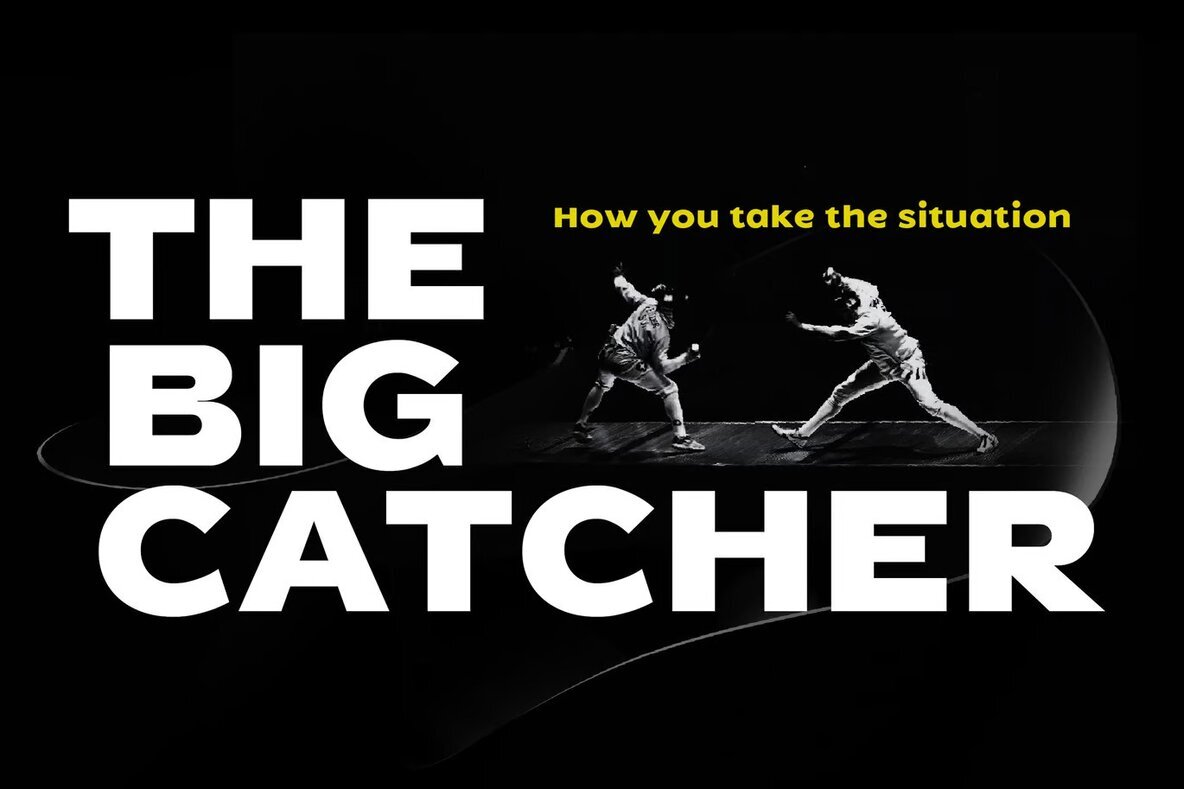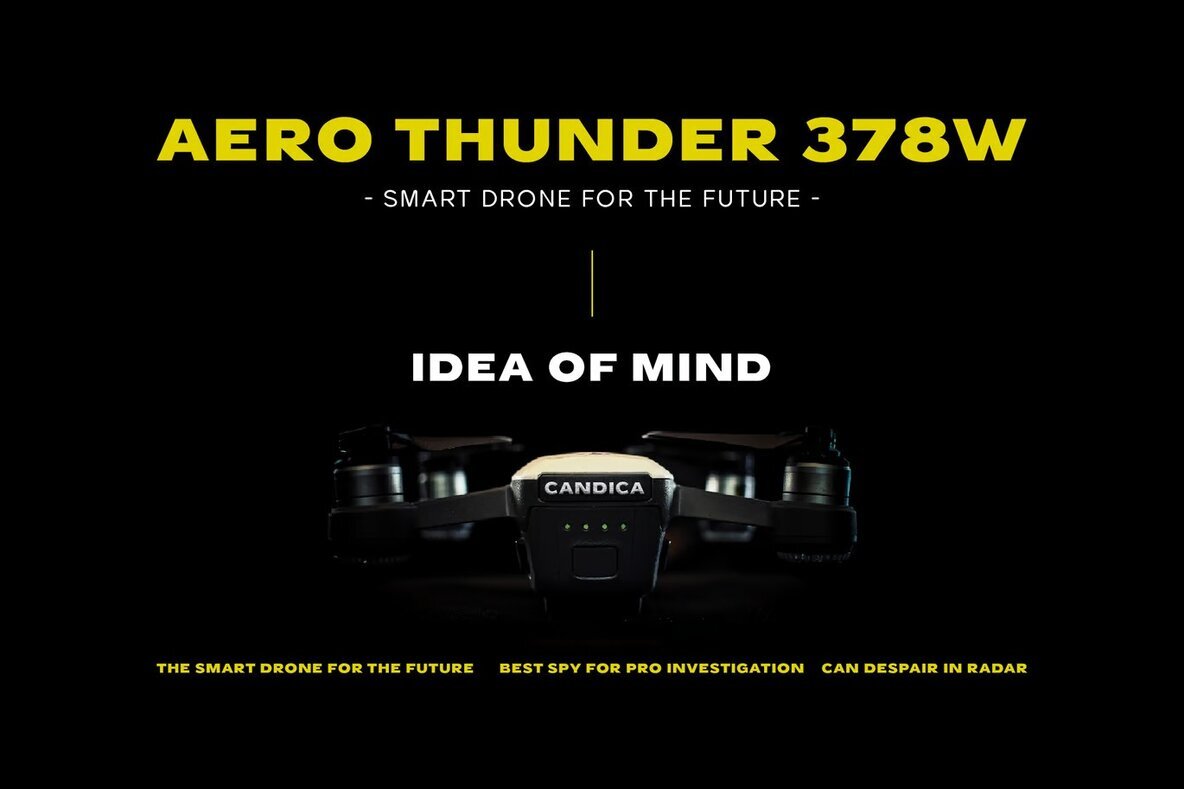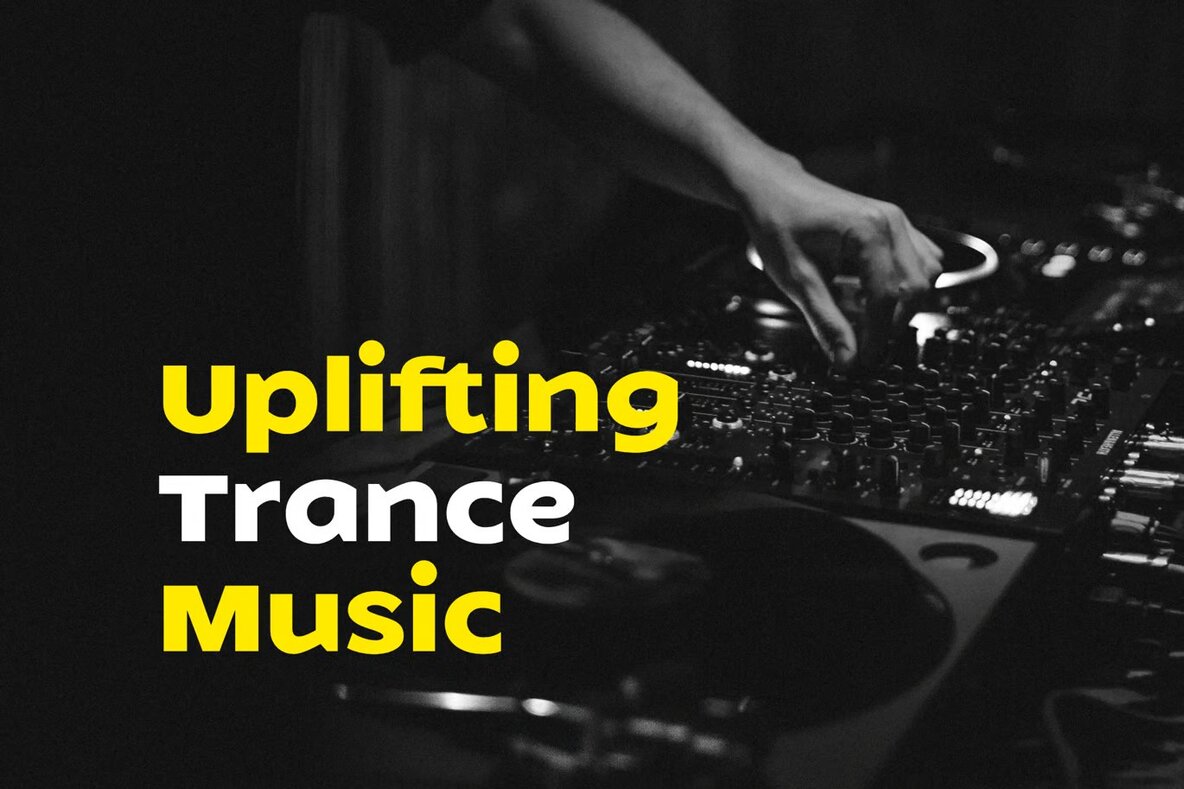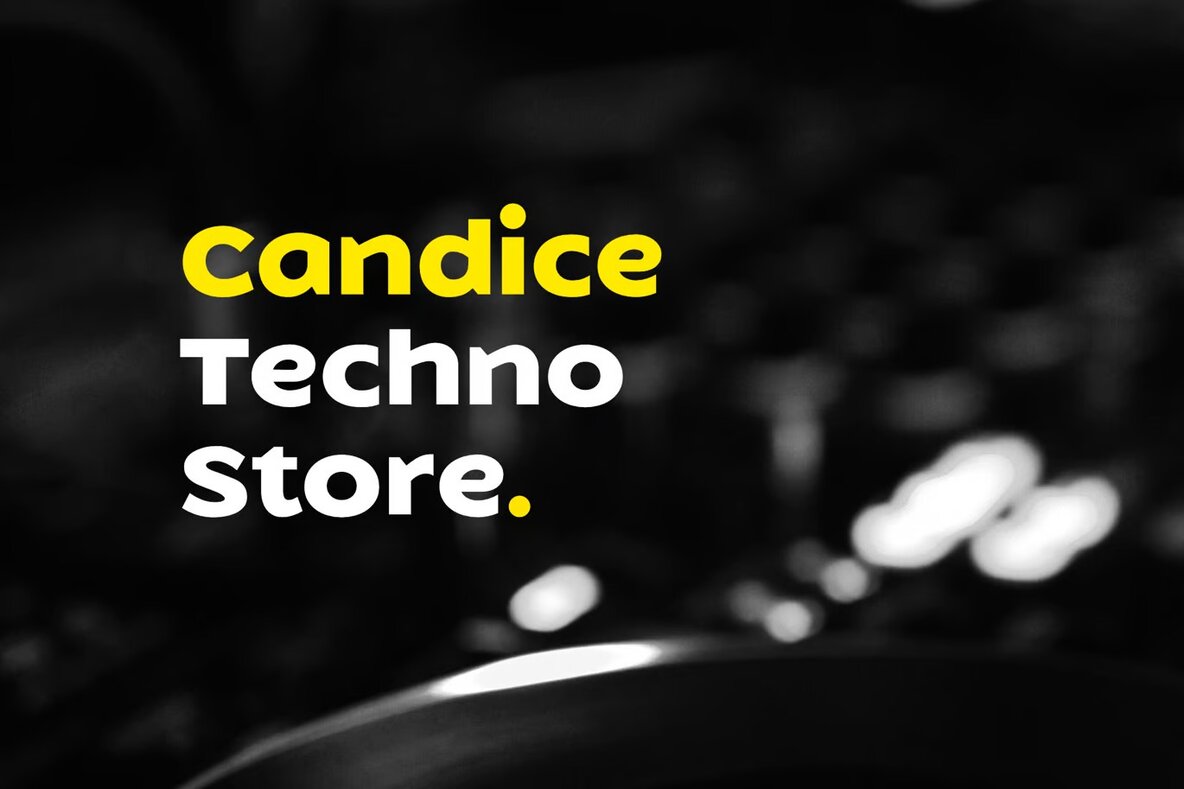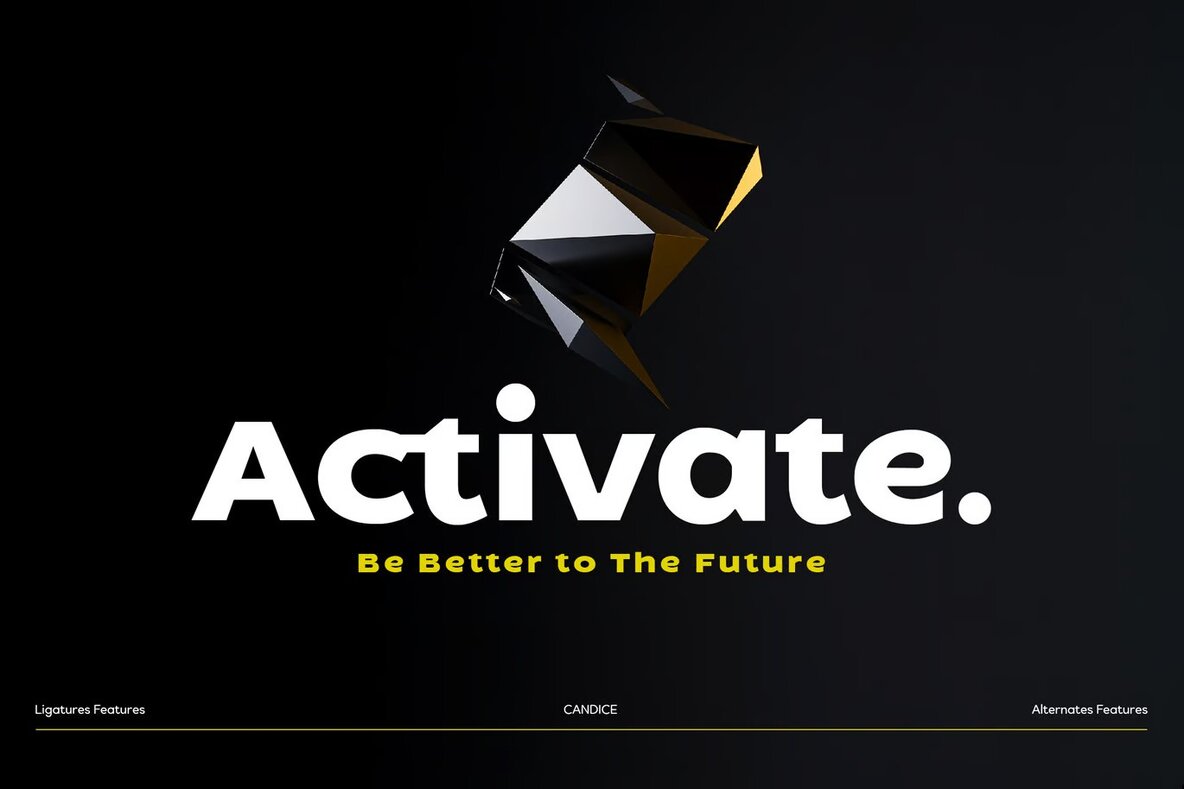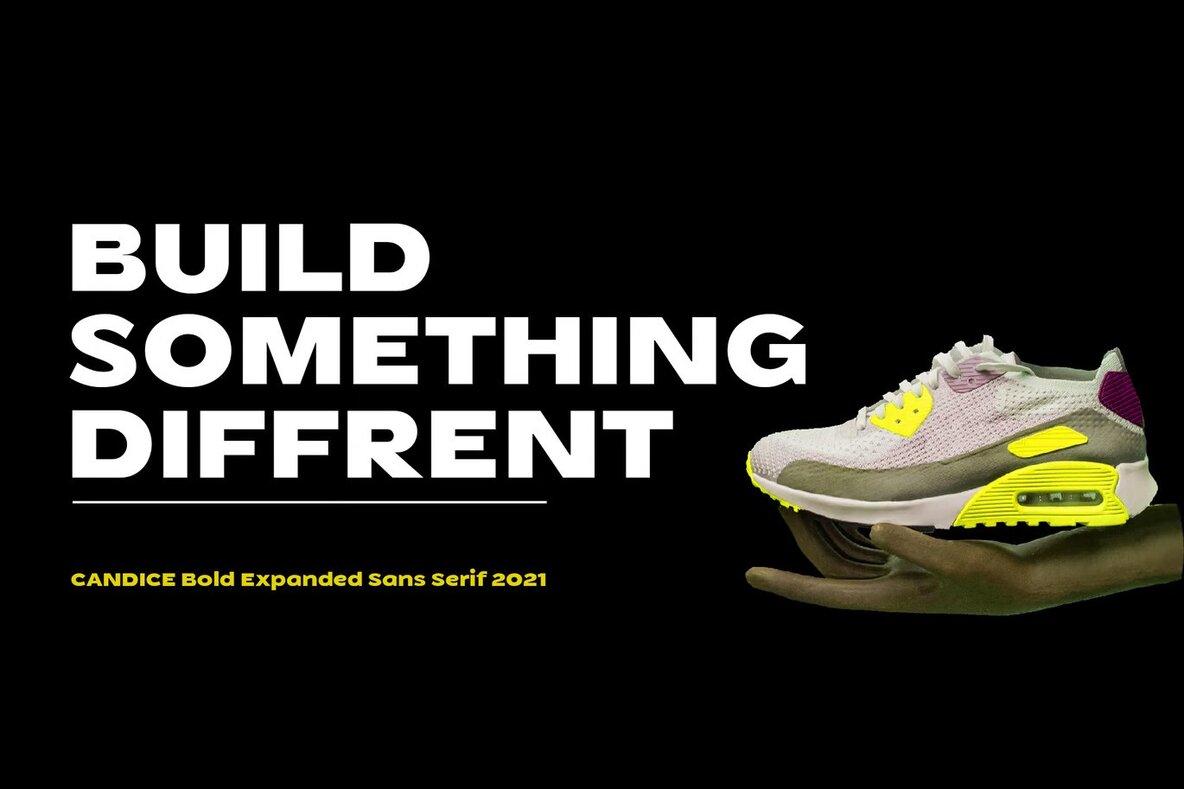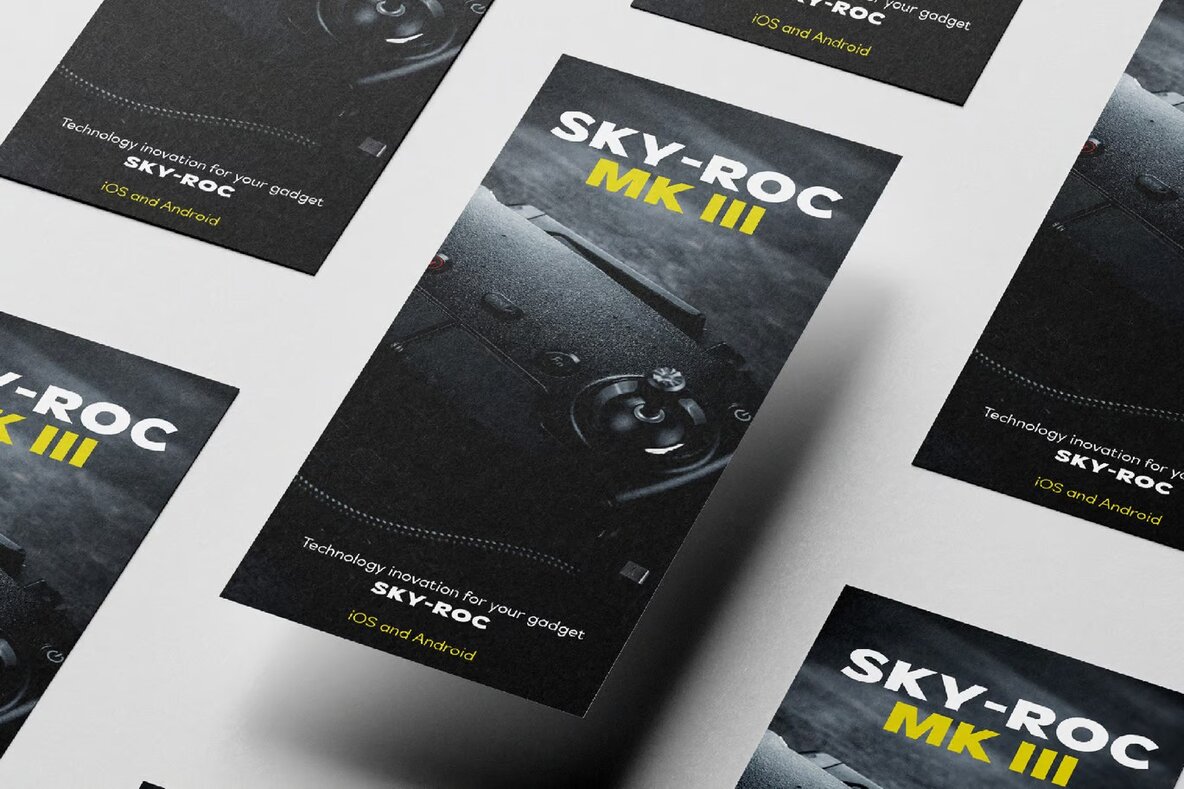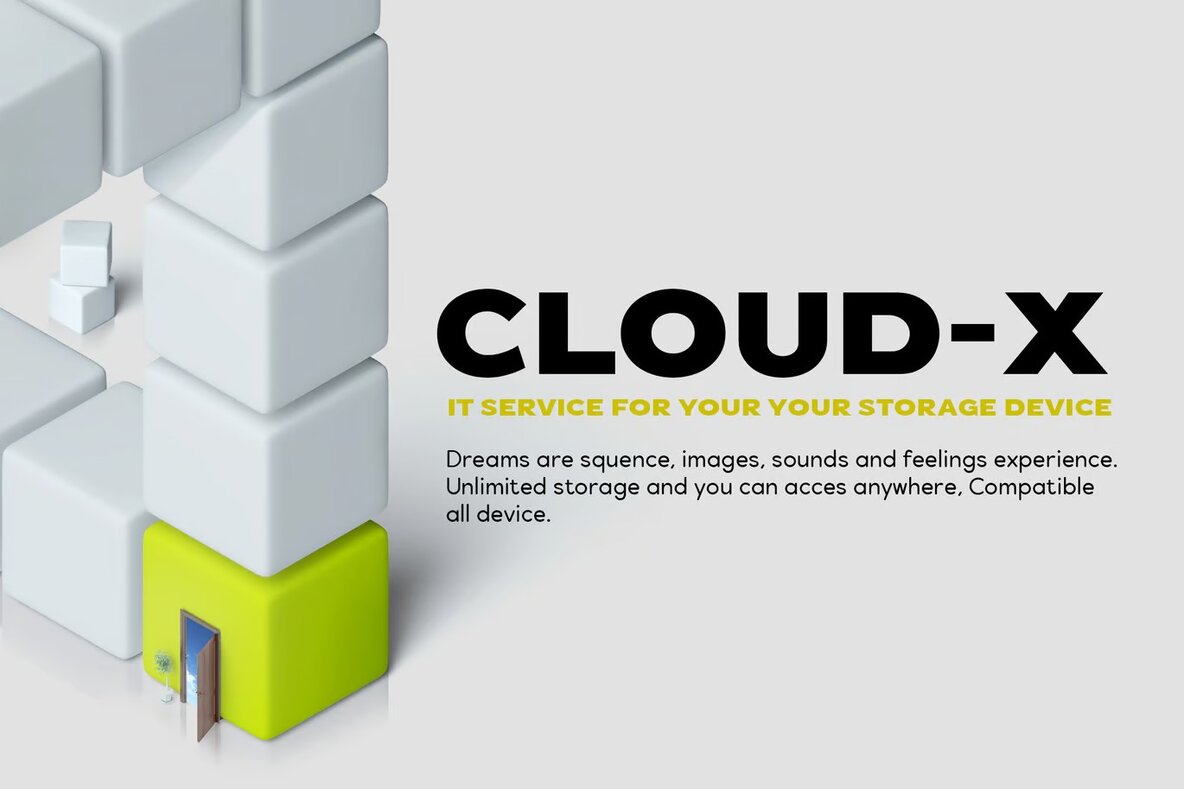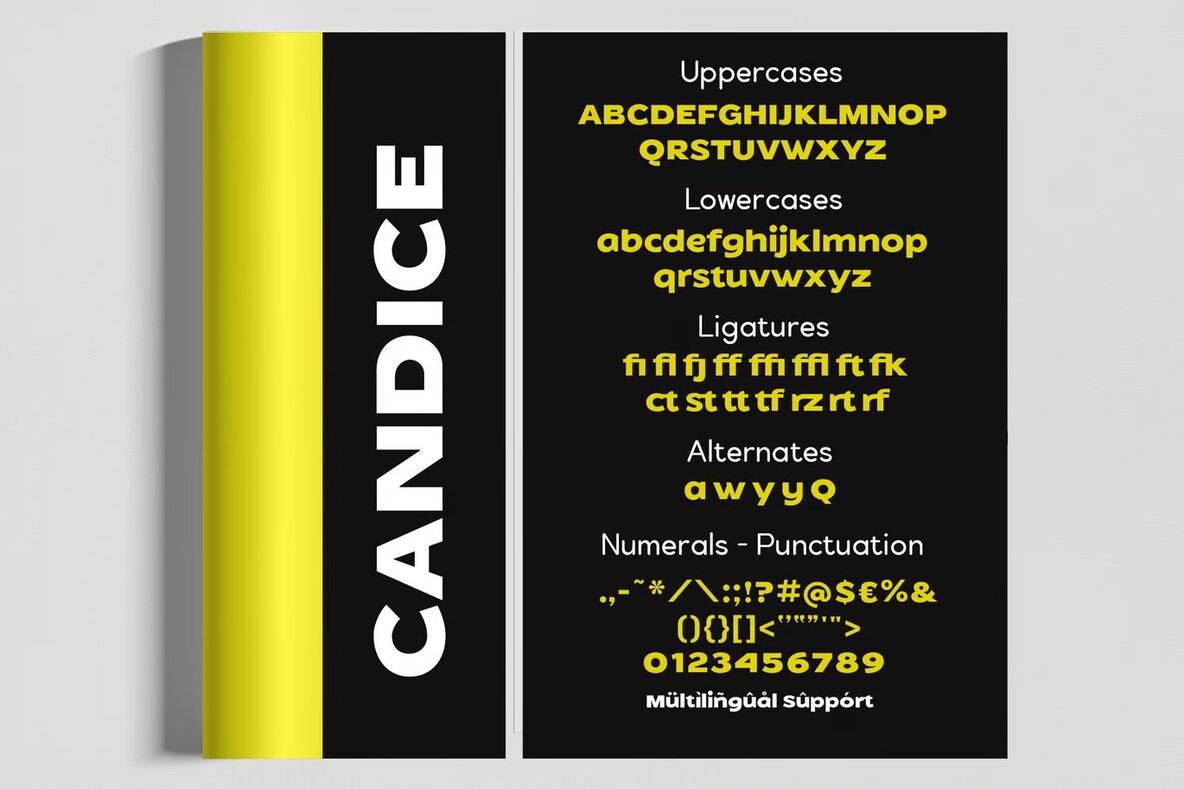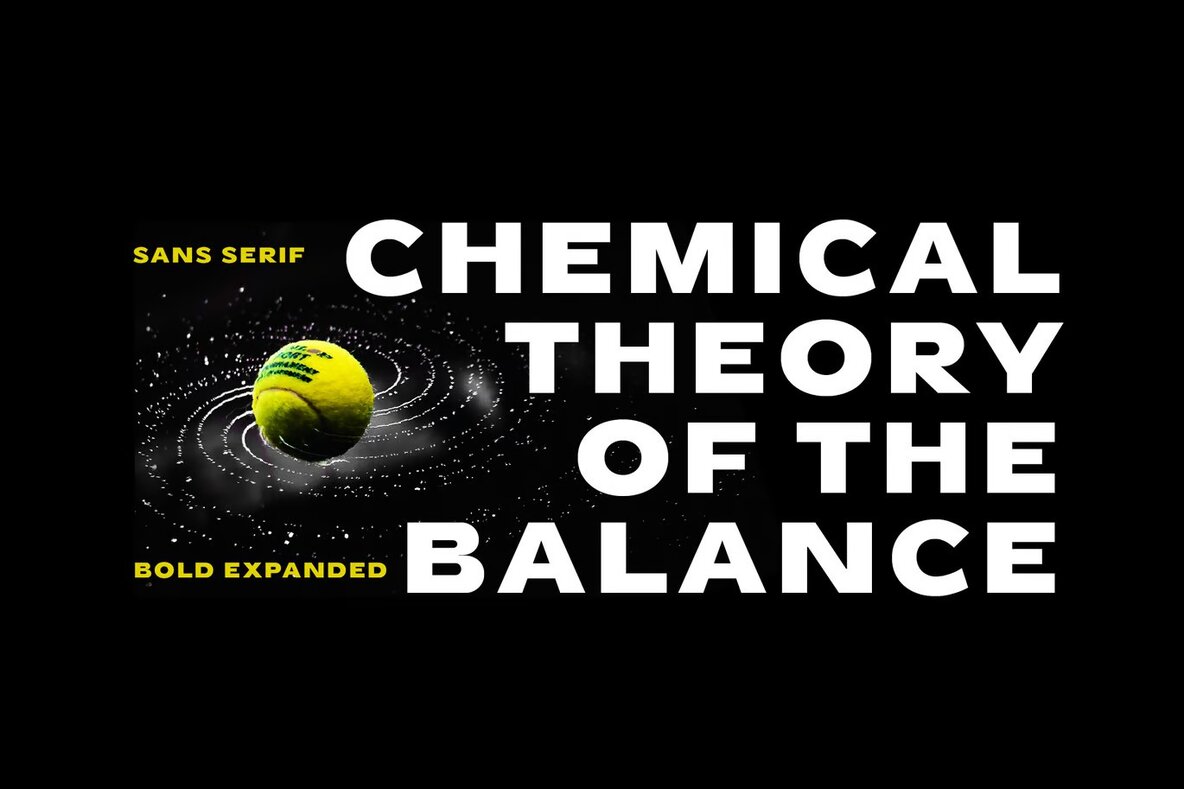
Candice Font
Candice Bold Expanded
Candice is a heavy, bold, expanded sans serif font that exudes a sense of power and intensity, making it ideal for projects across various industries. Its strong and dynamic design is particularly well-suited for logo branding, editorial layouts, and esport designs. This font is a prime choice for fitness and gym branding, tapping into the energetic and robust nature of sports and athleticism.
Its versatility makes it an excellent pick for the gaming industry, including sport racing themes and supercar branding, conveying speed and precision. Additionally, it suits music posters, website design, and modern advertising campaigns, where impactful visuals are crucial. Whether you're designing a striking book cover, a captivating poster quote, or materials for special events, this font provides a commanding presence that draws attention and adds a professional edge.